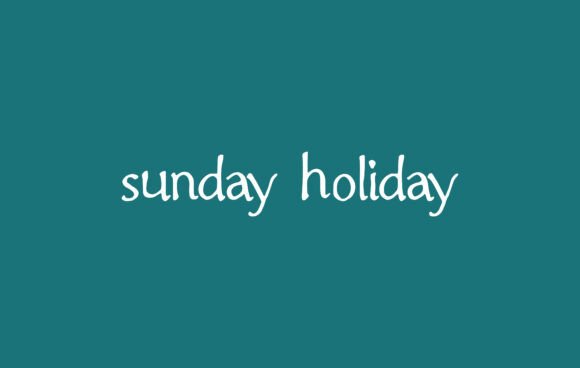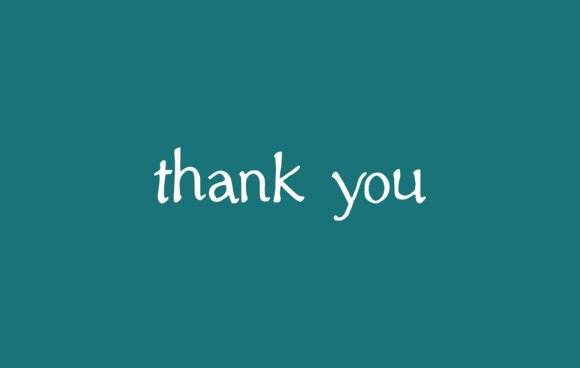
Discover the Charm of AIStroke Font: Elevate Your Designs with a Romantic Touch
In the world of typography, a font can make all the difference in capturing the essence of a design. For those seeking a touch of romance and authenticity, the AIStroke font is an exceptional choice. This beautifully crafted handwritten font is designed to leave a lasting impression, making it perfect for a wide range of creative projects.
The Allure of AIStroke Font
AIStroke font boasts a unique, romantic charm that sets it apart from other fonts. Its authentic handwritten style exudes warmth and personality, making it an ideal choice for designers and crafters looking to add a personal touch to their work. Whether you’re creating magazine headlines, social media graphics, branding materials, wedding invitations, or cards, this font is sure to impress.
Key Features of AIStroke Font
- Legibility: One of the standout features of AIStroke font is its exceptional legibility. This makes it suitable for use as both title and body text, allowing you to maintain consistency throughout your designs.
- Versatility: The romantic and elegant feel of AIStroke font lends itself to a multitude of design applications. From formal to casual, this font adapts seamlessly to various styles and themes.
- Authentic Handwritten Style: The font’s authentic handwritten appearance adds a touch of human warmth to your designs, making them more relatable and engaging.
Design Applications for AIStroke Font
The versatility of AIStroke font makes it an excellent choice for a variety of design projects. Here are some ideas to get you started:
- Magazine Headlines: Create eye-catching headlines that draw readers in with the elegant and sophisticated look of AIStroke font.
- Social Media Graphics: Elevate your social media presence with custom graphics that feature the romantic charm of AIStroke font.
- Branding: Establish a strong brand identity with AIStroke font, which can be used for logos, taglines, and marketing materials.
- Wedding Invitations: Add a touch of romance and whimsy to wedding invitations, save-the-date cards, and other wedding stationery.
- Cards and Stationery: Create beautiful, one-of-a-kind cards and stationery that showcase the authentic handwritten style of AIStroke font.
Tips for Using AIStroke Font Effectively
To get the most out of AIStroke font, consider the following tips:
- Pair with Complementary Fonts: Combine AIStroke font with other fonts that complement its style to create visual interest and hierarchy in your designs.
- Experiment with Colors: Take advantage of AIStroke font’s versatility by experimenting with different colors and textures to match your brand or design theme.
- Use for Emphasis: Use AIStroke font to draw attention to key messages or calls-to-action in your designs.
AIStroke font is a beautiful, authentic handwritten font that adds a romantic touch to any design. Its legibility, versatility, and elegant style make it an excellent choice for designers and crafters looking to elevate their creative projects. Whether you’re working on magazine headlines, social media graphics, branding materials, or wedding stationery, AIStroke font is sure to impress. Discover the charm of AIStroke font and take your designs to the next level.